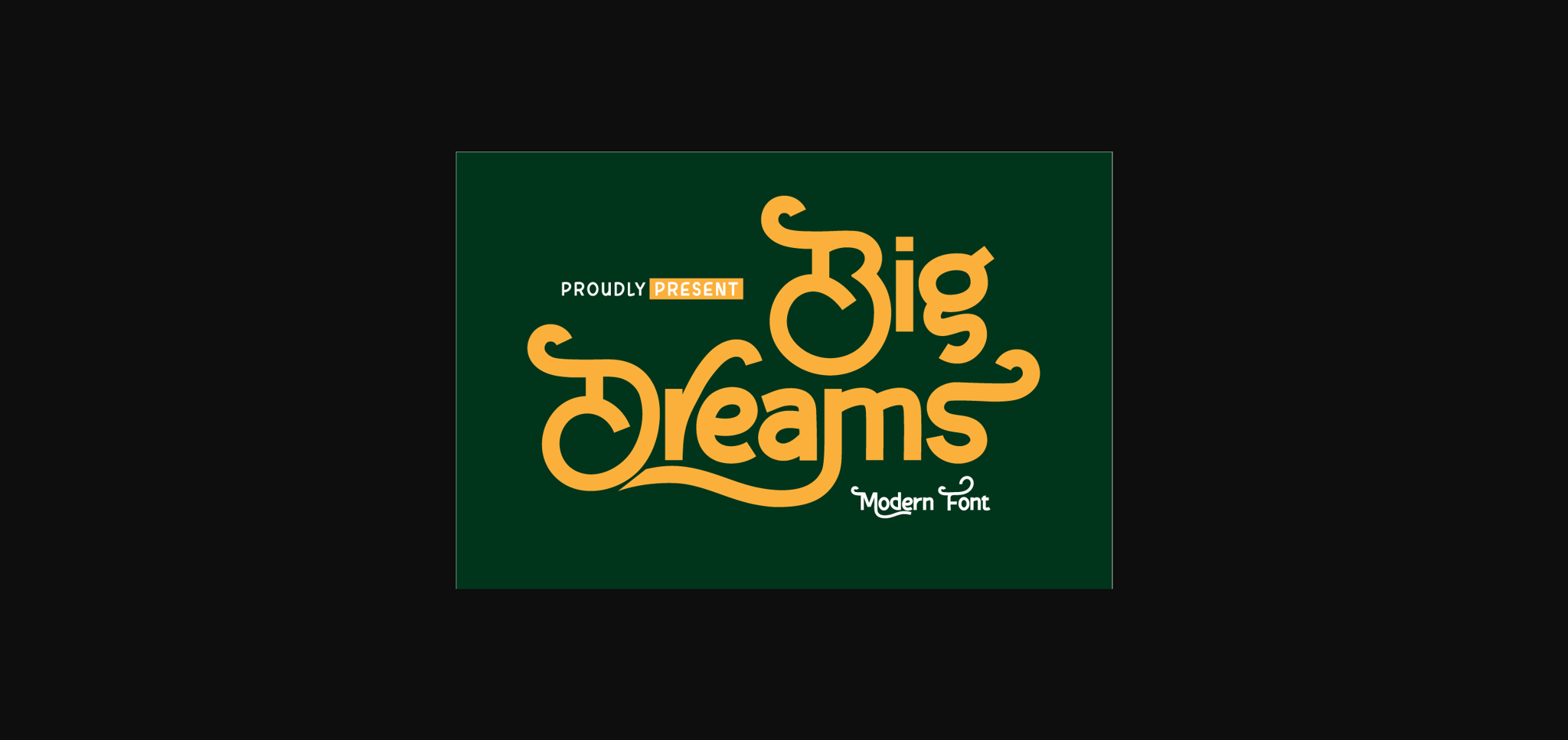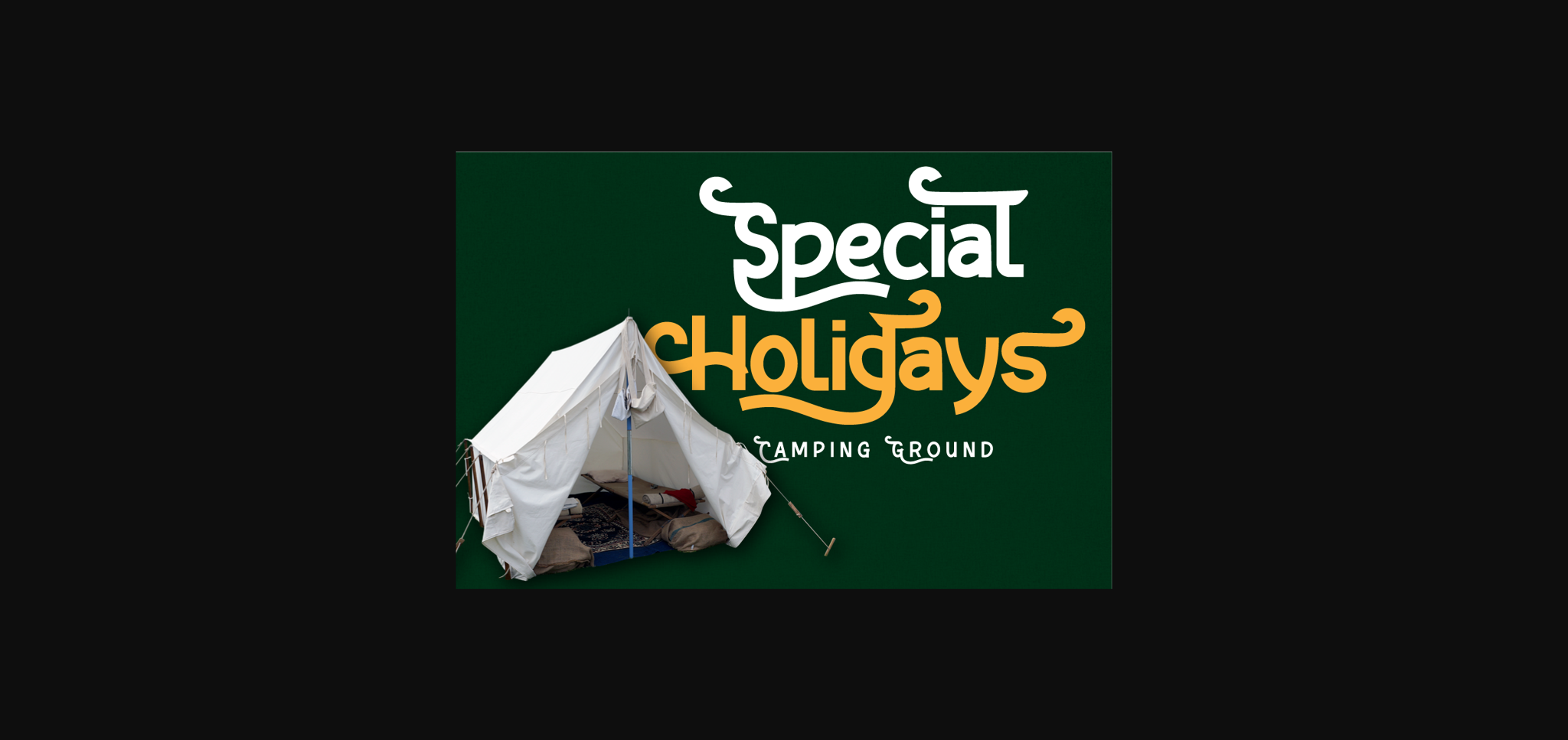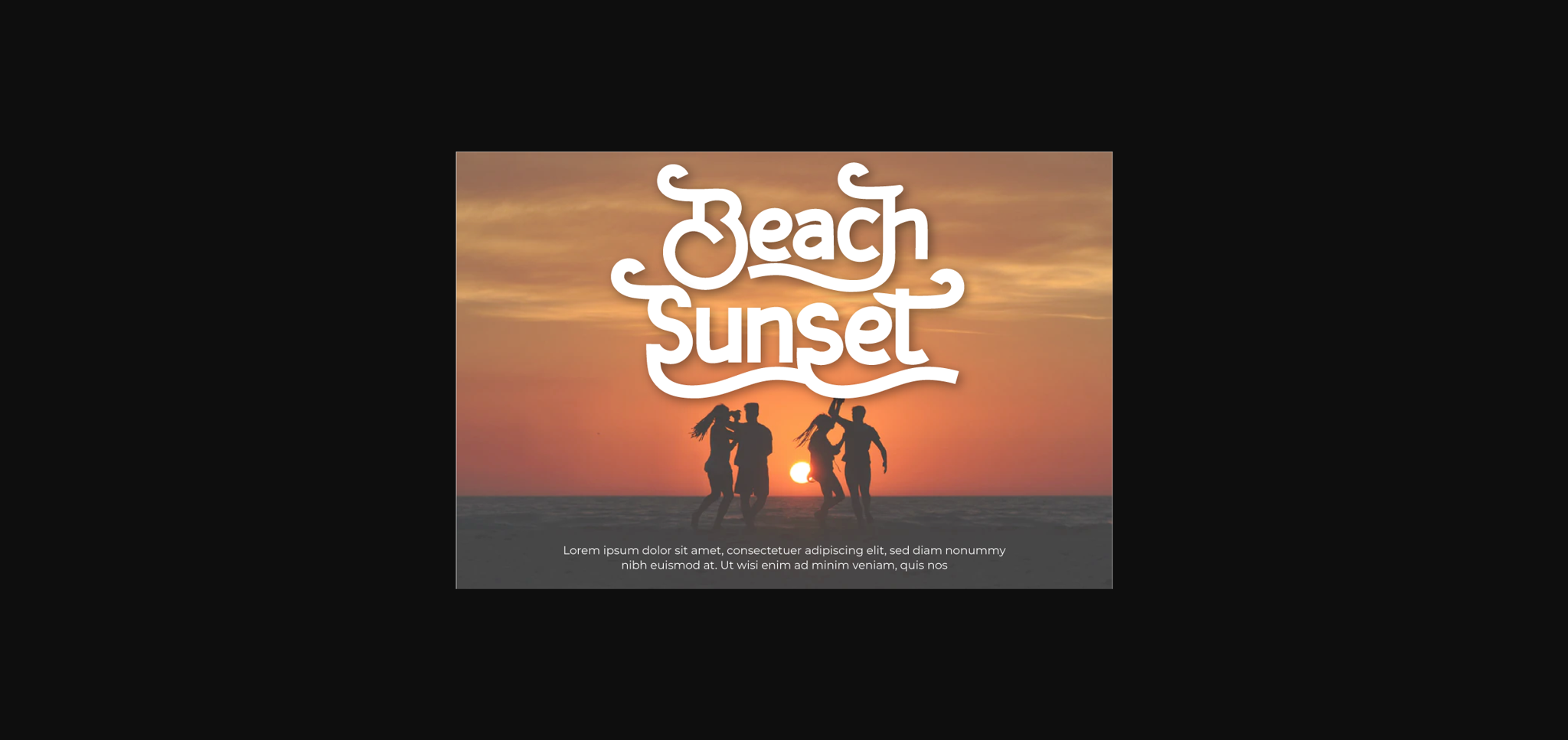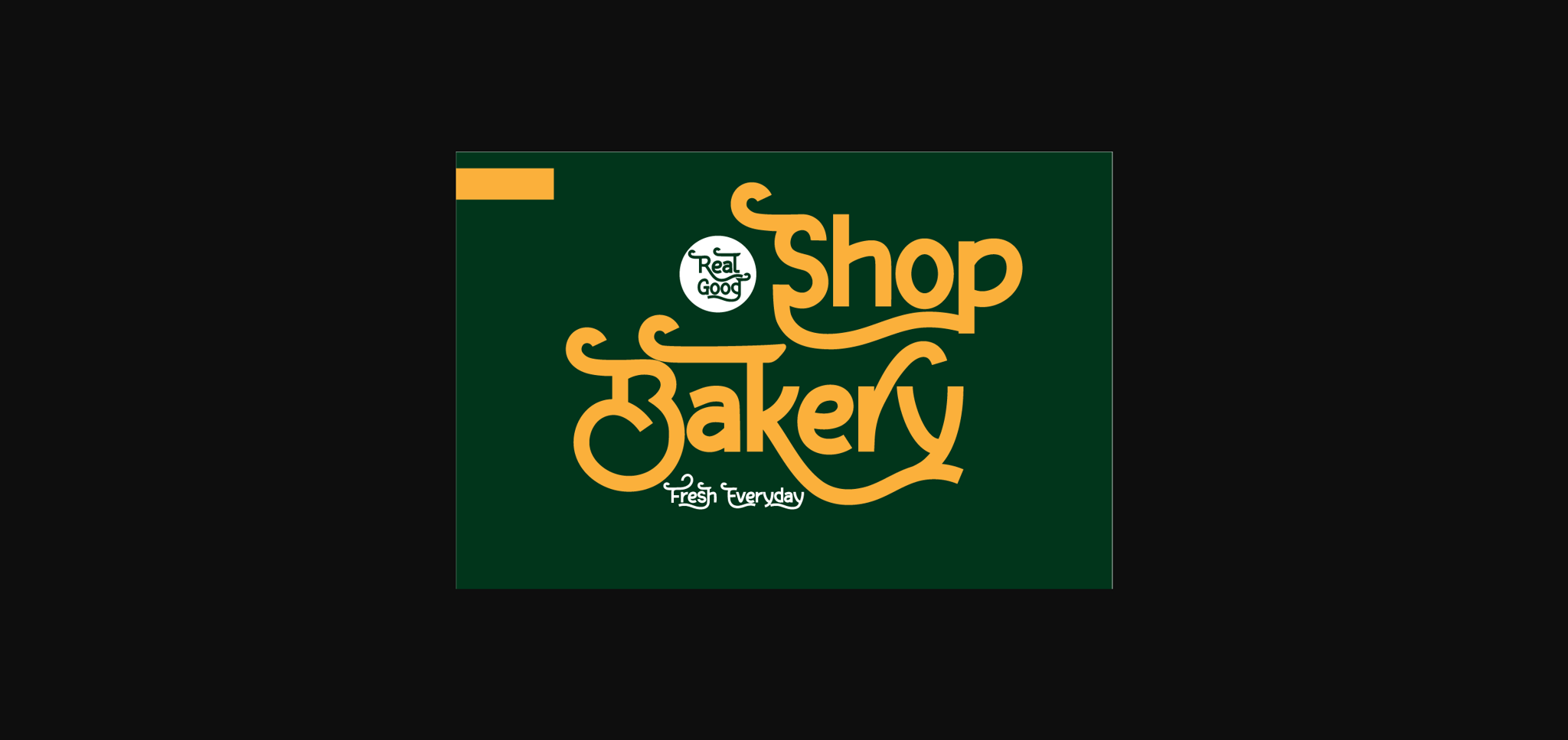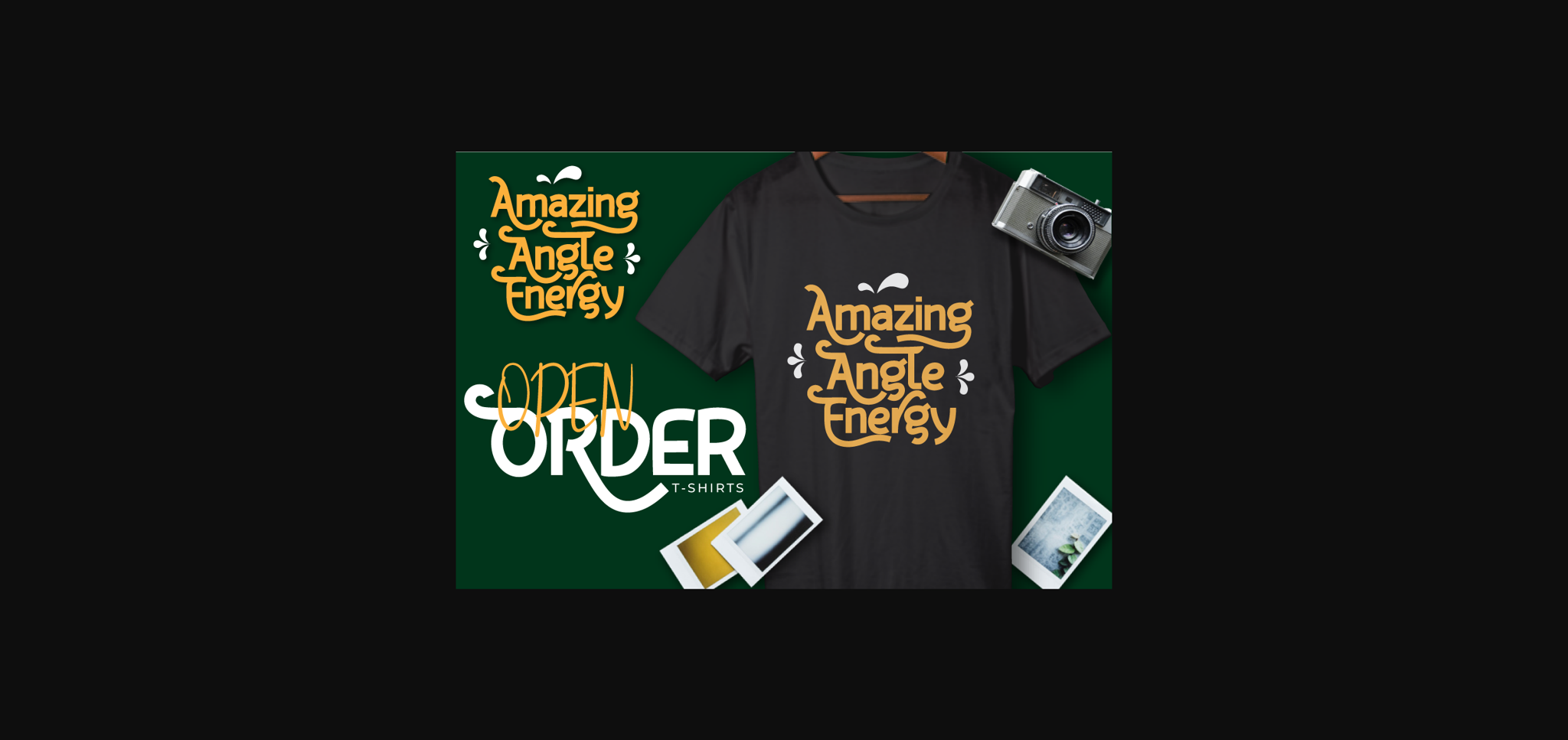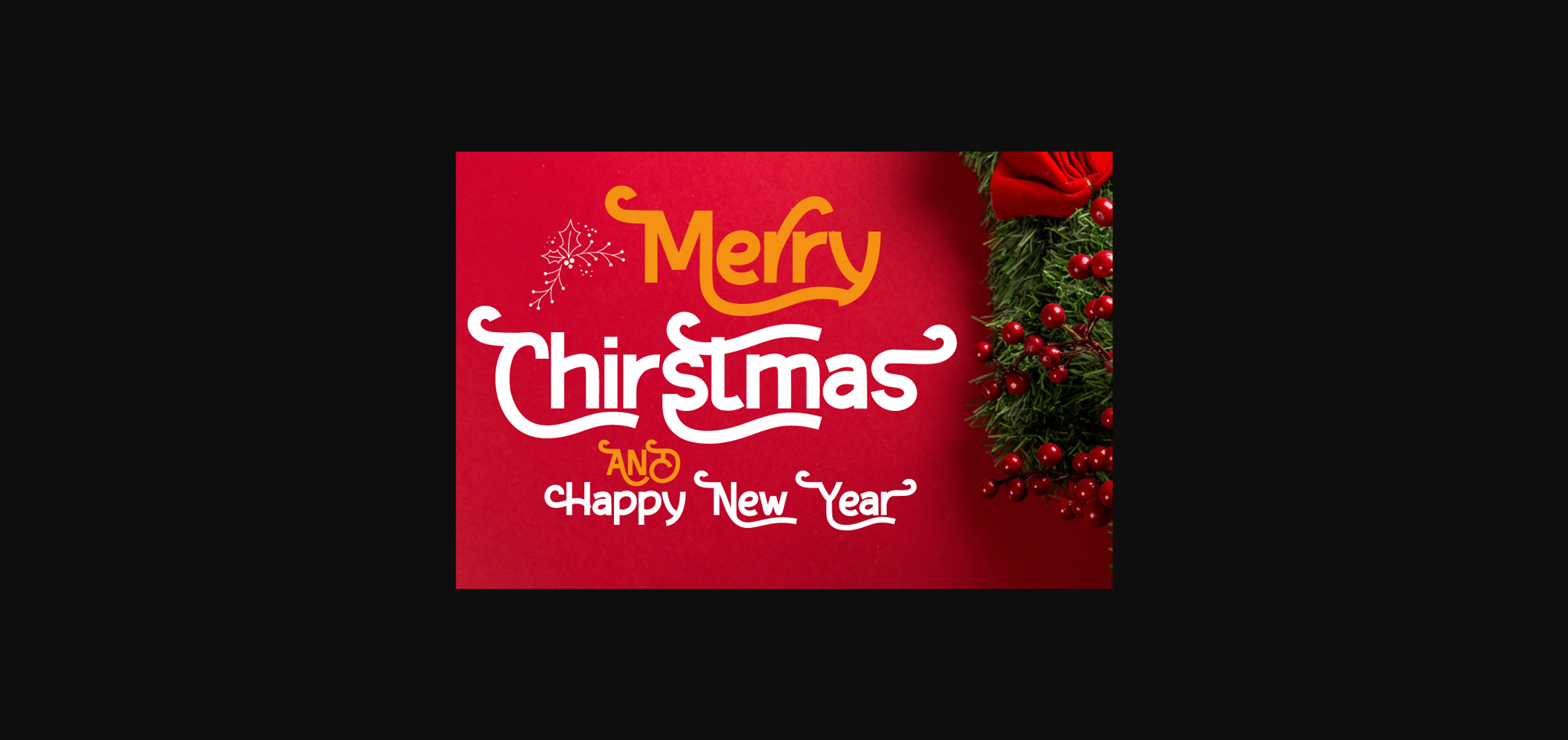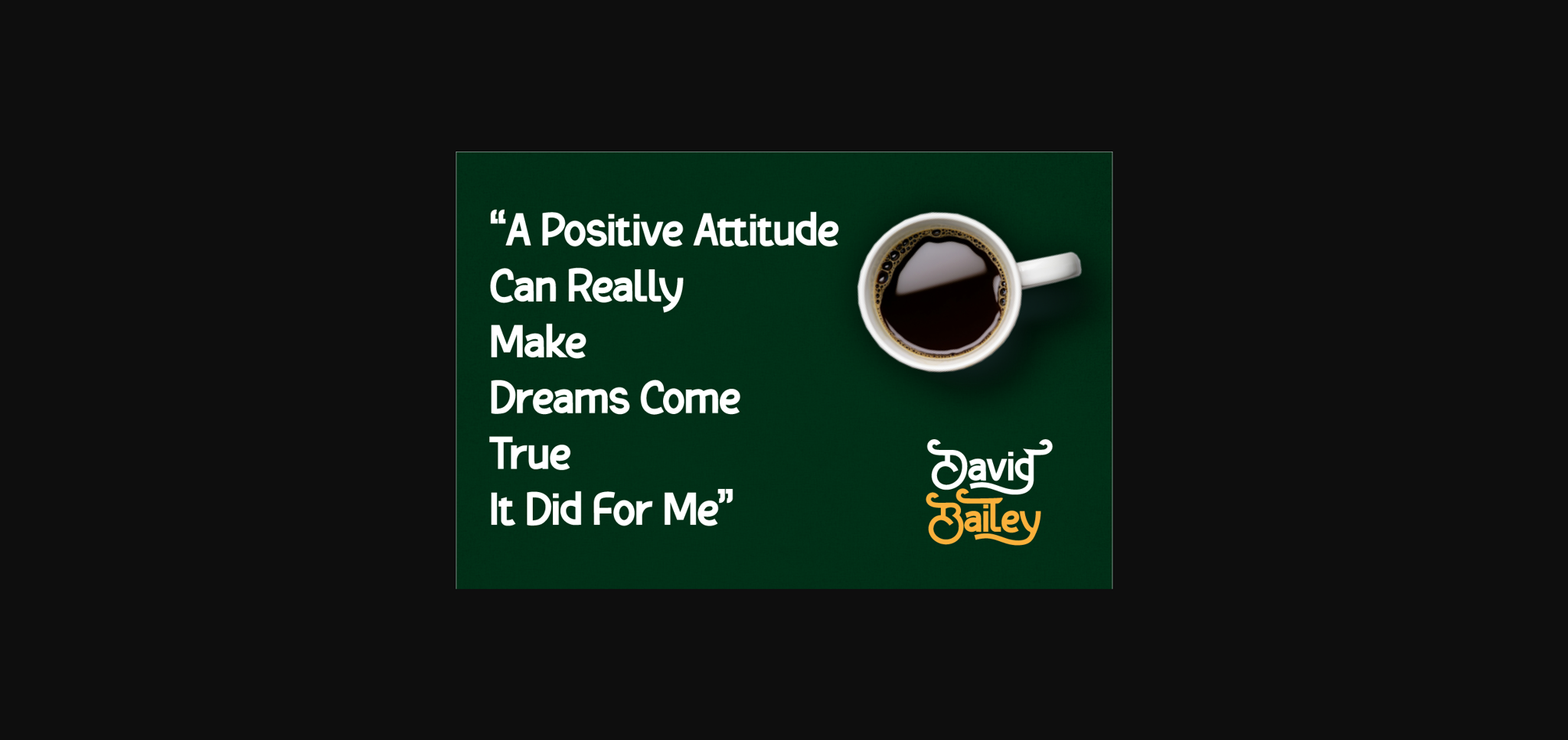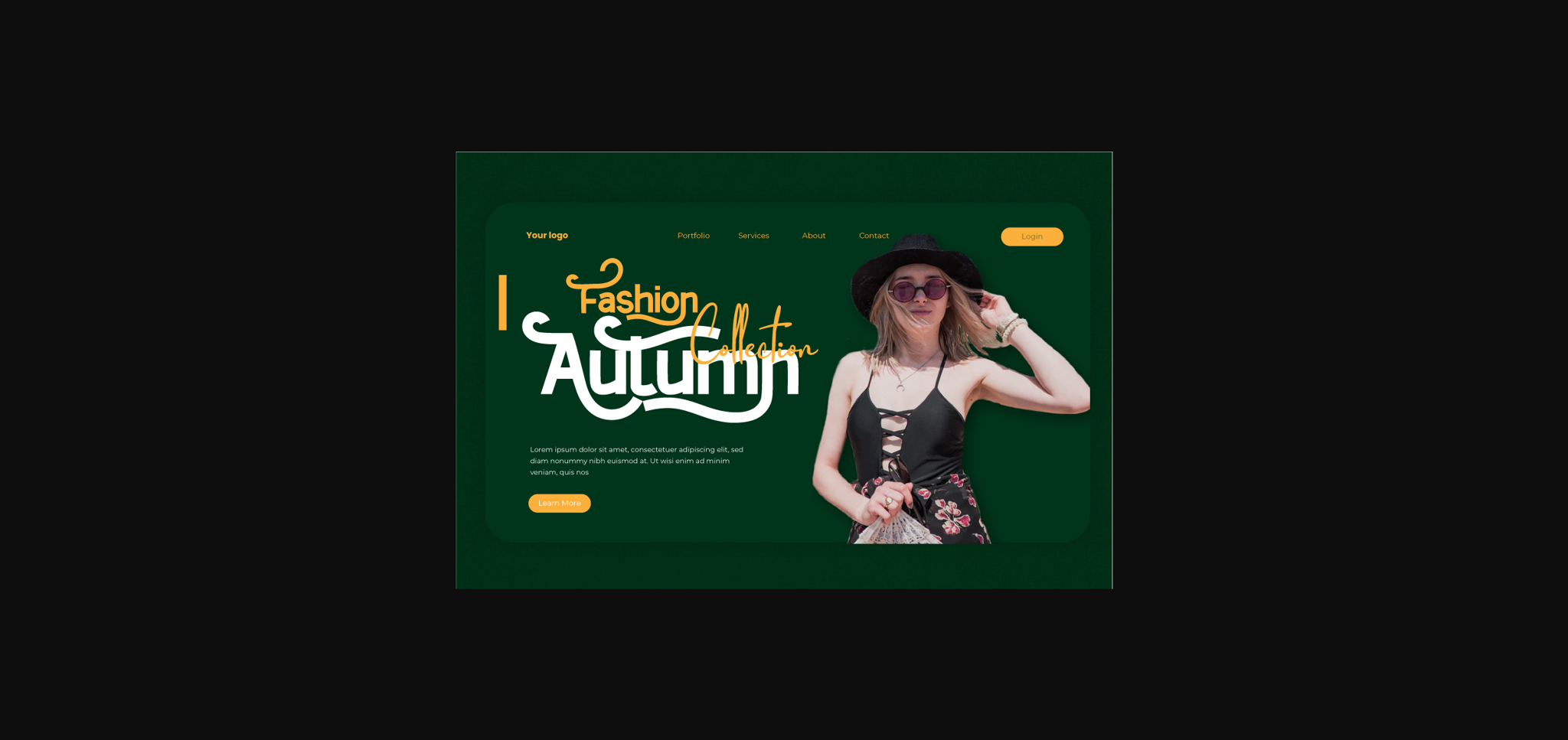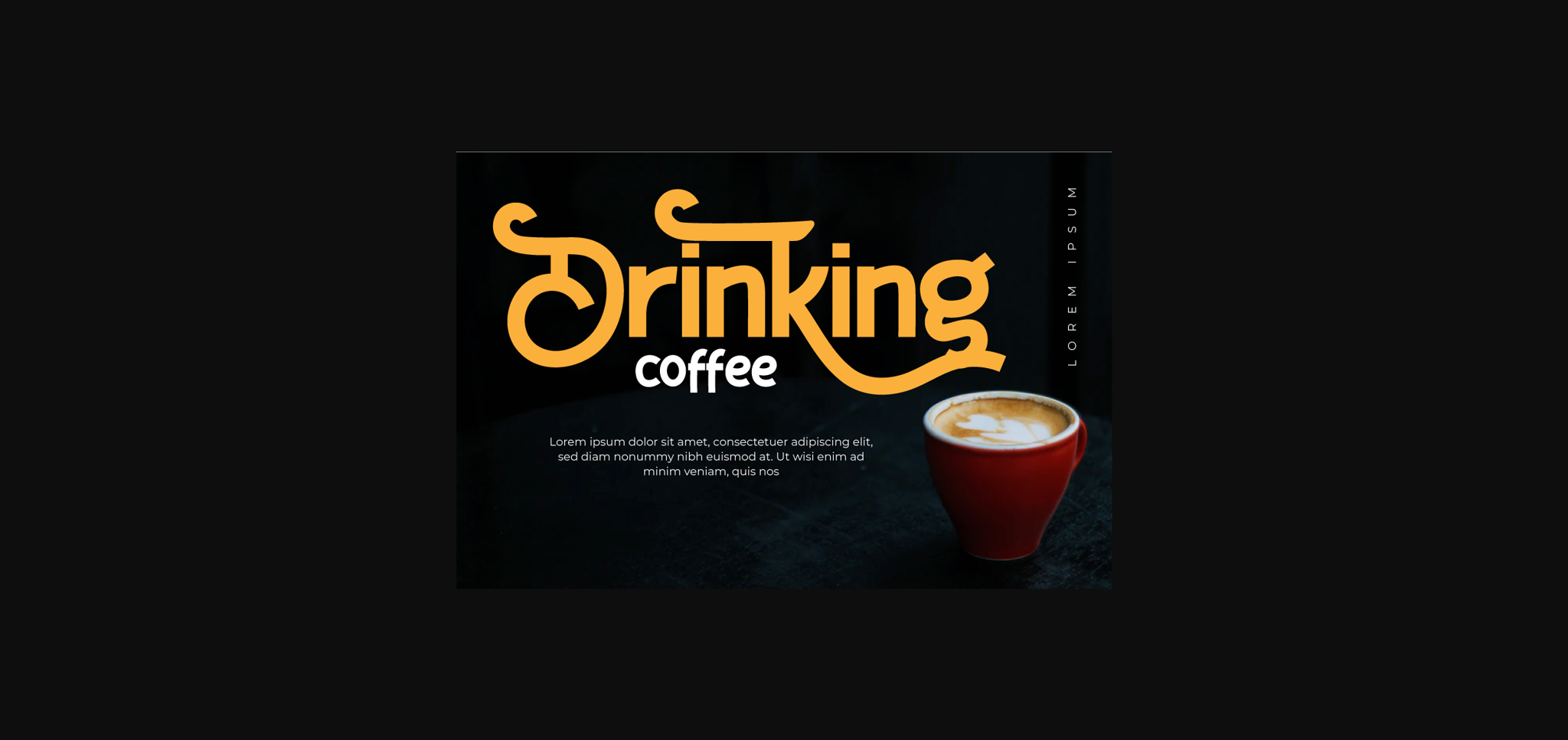
HomeSans Serif FontsBig Dreams Font Sans Serif Fonts Big Dreams Font FacebookXPinterestWhatsApp 1 of 11 ... Big Dreams Font Poster 2... Big Dreams Font Poster 3... Big Dreams Font Poster 4... Big Dreams Font Poster 5... Big Dreams Font Poster 6... Big Dreams Font Poster 7... Big Dreams Font Poster 8... Big Dreams Font Poster 9... Big Dreams Font Poster 10... Big Dreams Font Poster 11... About Big Dreams Font Big Dreams is an elegant and unique sans serif font. This original look will appeal to a wide range of crafty ideas, from letterheads and titles, to stationery. DOWNLOAD NOW People also explored Black Fellas Font Bastian Font Delicious Food Font Green Aila Font The Outskirts Font Farmhouse Font Ganurupa Font Mynaruse Flare Sweet Lovato Font 348 0 TagsBig Dreams Font Previous articleHeisman FontNext articleSweet Darling Font LEAVE A REPLY Cancel reply Comment: Please enter your comment! Name:* Please enter your name here Email:* You have entered an incorrect email address! Please enter your email address here Website: Save my name, email, and website in this browser for the next time I comment. Personal Use Free Loopina Personal Use Free Read more about this font Spectrashell Personal Use Free Read more about this font Bajt Rounded Personal Use Free Read more about this font Husky Stash Personal Use Free Read more about this font BLOG 5 Fonts That Will Dominate Design Trends in 2026 5 Fonts for 2026 That Will Dominate Design Trends Typography plays a critical role in visual communication, and as we look ahead to 2026, it’s... The 10 Best Handwriting Fonts to Add Personality to Your Designs Where to Buy American Fonts Online in 2024 How to Install and Use Fonts on Windows, macOS, and Web Projects